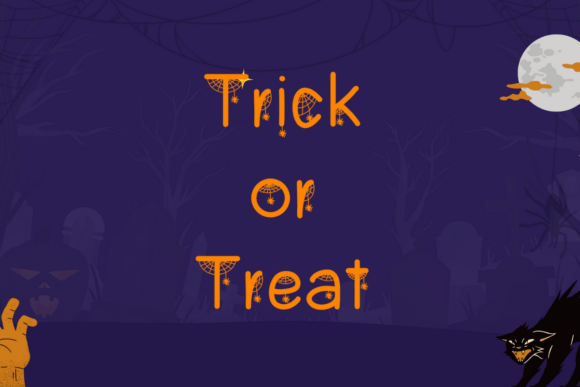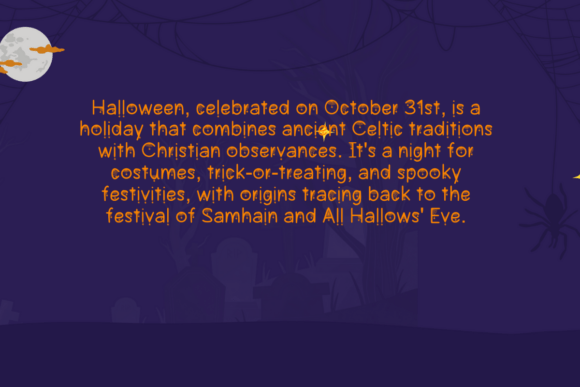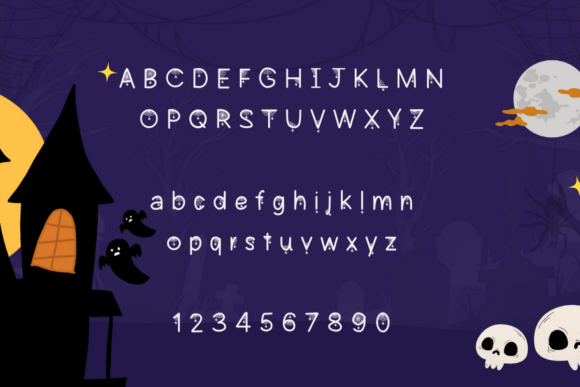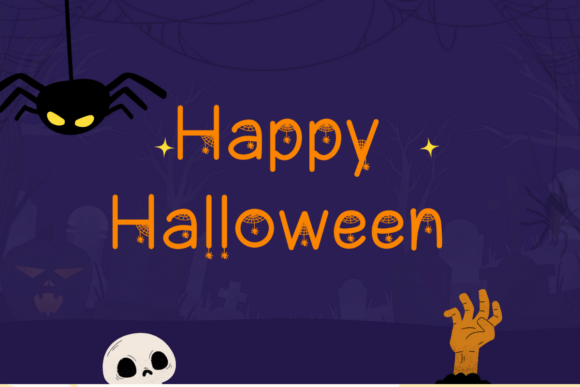
Happy Halloween Font: Creepy-Cute Design for Halloween & Beyond
Are you looking for a font that captures the essence of Halloween with a touch of whimsy and spookiness? Look no further than the Happy Halloween font! This delightful font is perfect for designers and crafters who want to add a hauntingly stylish touch to their creative projects.
The Unique Charm of Happy Halloween Font
The Happy Halloween font weaves a touch of spooky charm into every letter. Each character is delicately adorned with intricate web details, making it the perfect choice for projects inspired by Halloween, ghosts, witches, and other eerie themes. The font’s unique web-like details make it ideal for bringing a whimsical yet spooky atmosphere to your project — perfect for both professional and personal creative use.
Perfect for Various Creative Projects
The Happy Halloween font is versatile and can be used in a variety of creative projects, including:
• Digital artwork in Procreate or Canva
• Digital planners and GoodNotes pages
• Lecture materials or blog graphics
• Social media posts and ads that stand out
• Logos, invitations, greeting cards, t-shirt designs, posters, and flyers
Add a Mysterious and Playful Twist to Your Designs
The Happy Halloween font adds a mysterious and playful twist to your creative work. Whether you’re crafting a Halloween party invite or decorating your digital planner, this font is sure to impress. Its creepy-cute design makes it perfect for:
• Halloween party invitations and decorations
• Spooky-themed digital art and graphics
• Witchy and ghostly-inspired designs
• Eerie and mysterious-themed social media posts
Why Choose Happy Halloween Font?
There are many reasons why you should choose the Happy Halloween font for your creative projects:
• Unique and eye-catching design: The Happy Halloween font features a unique and eye-catching design that is sure to grab attention.
• Versatile: This font can be used in a variety of creative projects, from digital art to social media posts.
• High-quality: This font is high-quality and comes with intricate web details that add a touch of spookiness to your designs.
Tips for Using Happy Halloween Font
Here are some tips for using the Happy Halloween font in your creative projects:
• Experiment with different colors: Try pairing the Happy Halloween font with different colors to create a unique and eye-catching design.
• Mix and match with other fonts: Combine the Happy Halloween font with other fonts to create a bold and playful design.
• Use it for headings and titles: The Happy Halloween font is perfect for headings and titles, adding a touch of spookiness to your designs.